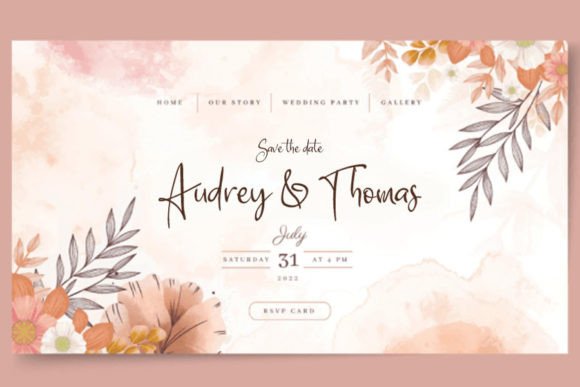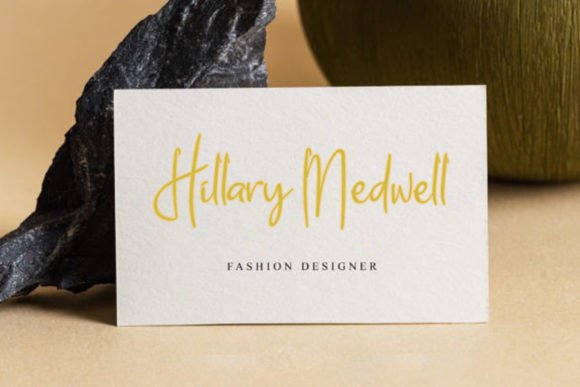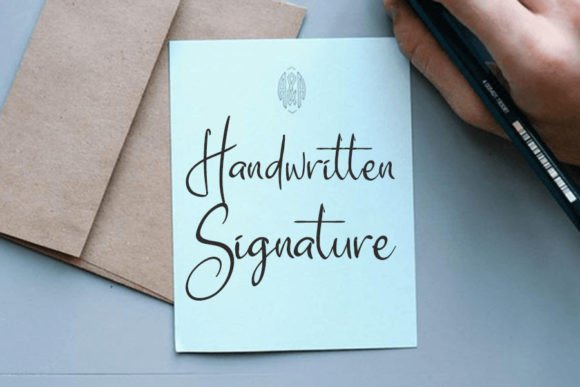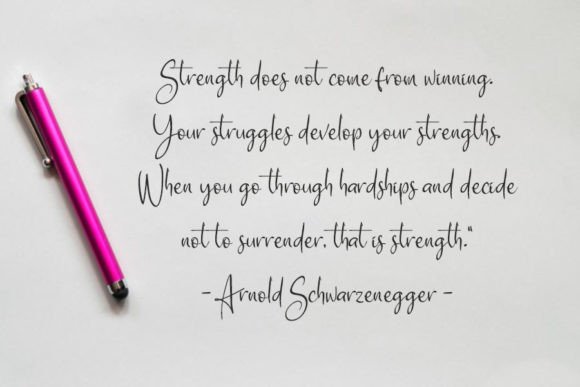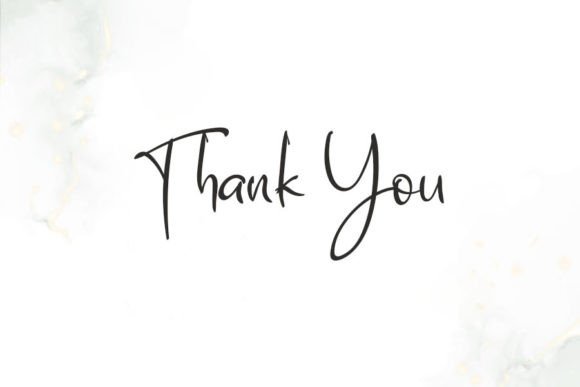
Coffee Signature Font: The Perfect Choice for Romantic and Elegant Designs
Are you a designer or crafter looking for a font that exudes romance and sweetness? Look no further than the Coffee Signature Font. This beautiful calligraphy typeface is perfect for creating elegant and sophisticated designs that will leave a lasting impression. In this article, we’ll take a closer look at the Coffee Signature Font, its features, and how you can use it to elevate your designs.
What is Coffee Signature Font?
Coffee Signature Font is a romantic and sweet calligraphy typeface that features characters that dance along the baseline. It has a casual, yet elegant touch that makes it perfect for a variety of design projects. The font’s unique and flowing script style gives it a distinctive look that is sure to capture the attention of your audience.
Key Features of Coffee Signature Font
- Romantic and Sweet: The Coffee Signature Font has a romantic and sweet feel to it, making it perfect for designs that require a touch of elegance and sophistication.
- Calligraphy Style: The font features a beautiful calligraphy style that is both classic and timeless.
- Casual yet Elegant: The font has a casual, yet elegant touch that makes it perfect for a variety of design projects.
- Versatile: The Coffee Signature Font can be used for a wide range of design projects, including logos, wedding invitations, headings, t-shirts, letterhead, signage, labels, news, posters, badges, and more.
Uses of Coffee Signature Font
The Coffee Signature Font is a versatile font that can be used for a wide range of design projects. Here are some of the most popular uses of the font:
- Logos: The Coffee Signature Font is perfect for creating elegant and sophisticated logos that will help your brand stand out.
- Wedding Invitations: The font’s romantic and sweet feel makes it perfect for wedding invitations and other wedding-related designs.
- Headings: The font’s unique and flowing script style makes it perfect for headings and titles.
- T-Shirts: The Coffee Signature Font can be used to create beautiful and unique t-shirt designs.
- Letterhead: The font’s elegant and sophisticated feel makes it perfect for letterhead and other business-related designs.
- Signage: The Coffee Signature Font can be used to create eye-catching signage that will grab the attention of your audience.
- Labels: The font’s unique and flowing script style makes it perfect for labels and other product-related designs.
- News: The Coffee Signature Font can be used to create elegant and sophisticated news headlines.
- Posters: The font’s versatile and elegant feel makes it perfect for posters and other promotional materials.
- Badges: The Coffee Signature Font can be used to create beautiful and unique badges.
Why Choose Coffee Signature Font?
There are many reasons why you should choose the Coffee Signature Font for your next design project. Here are a few:
- Unique and Elegant: The Coffee Signature Font has a unique and elegant feel that will help your designs stand out.
- Versatile: The font can be used for a wide range of design projects, making it a great addition to your font library.
- High-Quality: The Coffee Signature Font is a high-quality font that is designed to deliver exceptional results.
In conclusion, the Coffee Signature Font is a beautiful and elegant calligraphy typeface that is perfect for designers and crafters looking to create romantic and sophisticated designs. Its unique and flowing script style, casual yet elegant touch, and versatility make it a great addition to any font library. Whether you’re creating logos, wedding invitations, headings, t-shirts, or any other design project, the Coffee Signature Font is sure to deliver exceptional results.